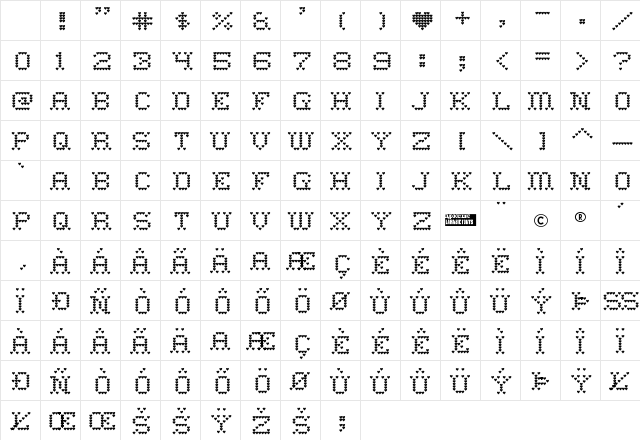
Heart Sweet Heart Regular Free Font
Heart Sweet Heart Regular
Design Context for Heart Sweet Heart
Heart Sweet Heart is a composed and adaptable typeface that performs quietly and consistently across a wide range of design contexts.